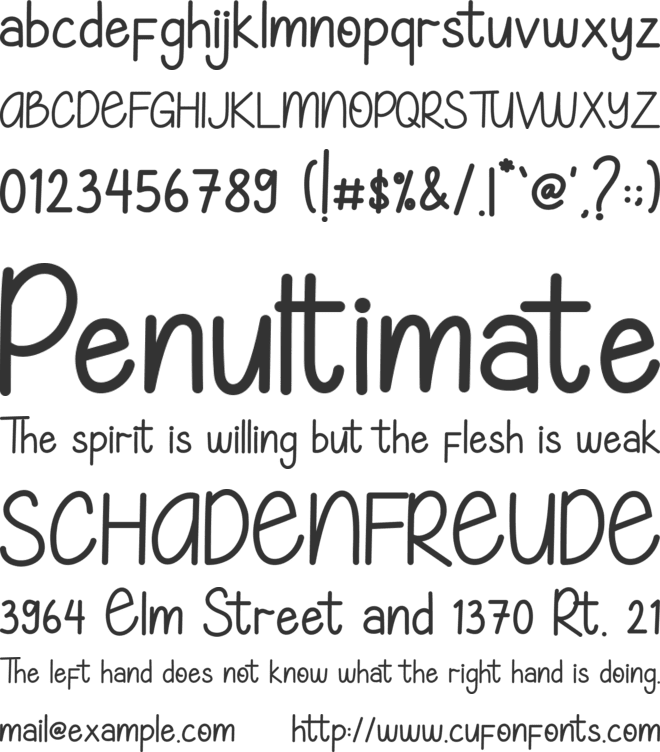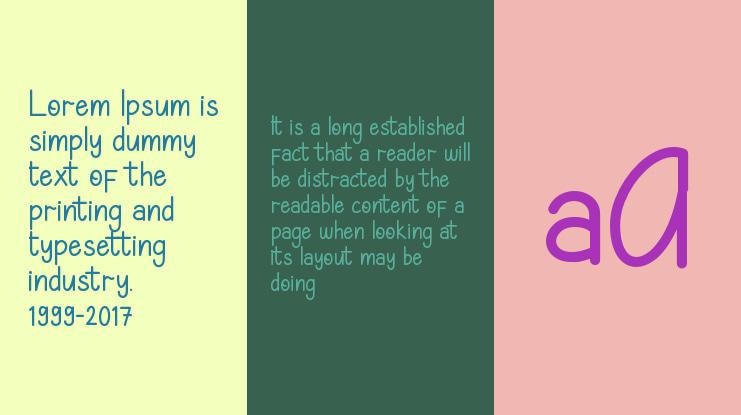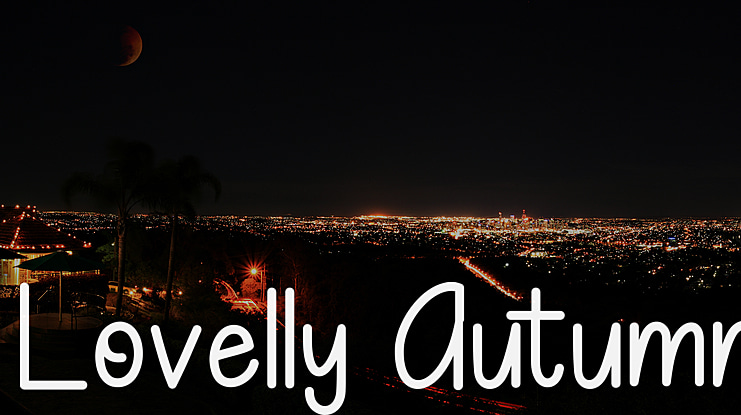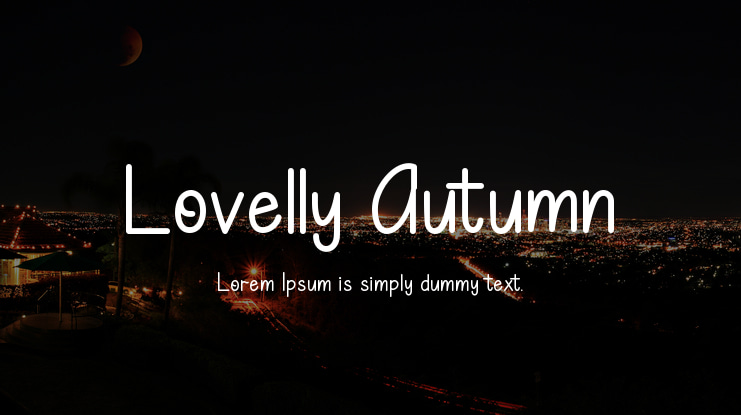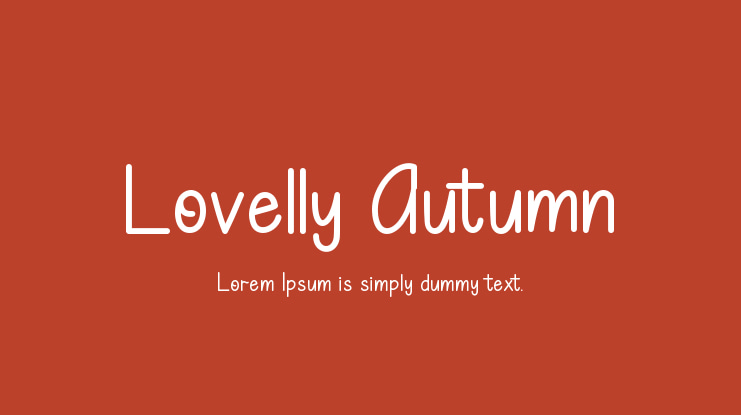
Lovelly Autumn Font
Lovely Autumn is a sweet and friendly handwritten font. Its natural and unique style makes it incredibly fitting to a large pool of designs. The only limit is your imagination!
This font is PUA encoded which means you can access all of the glyphs and swashes with ease! It features a varying baseline, smooth lines, gorgeous glyphs and stunning alternates.